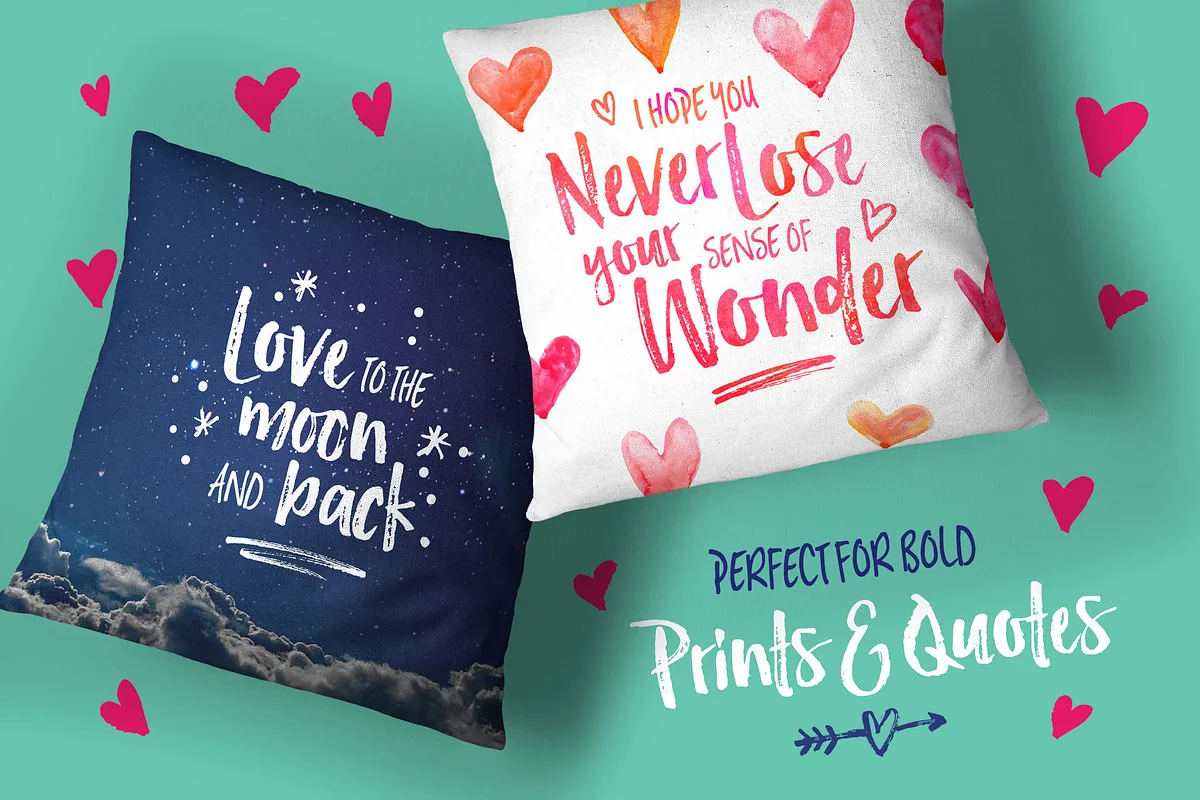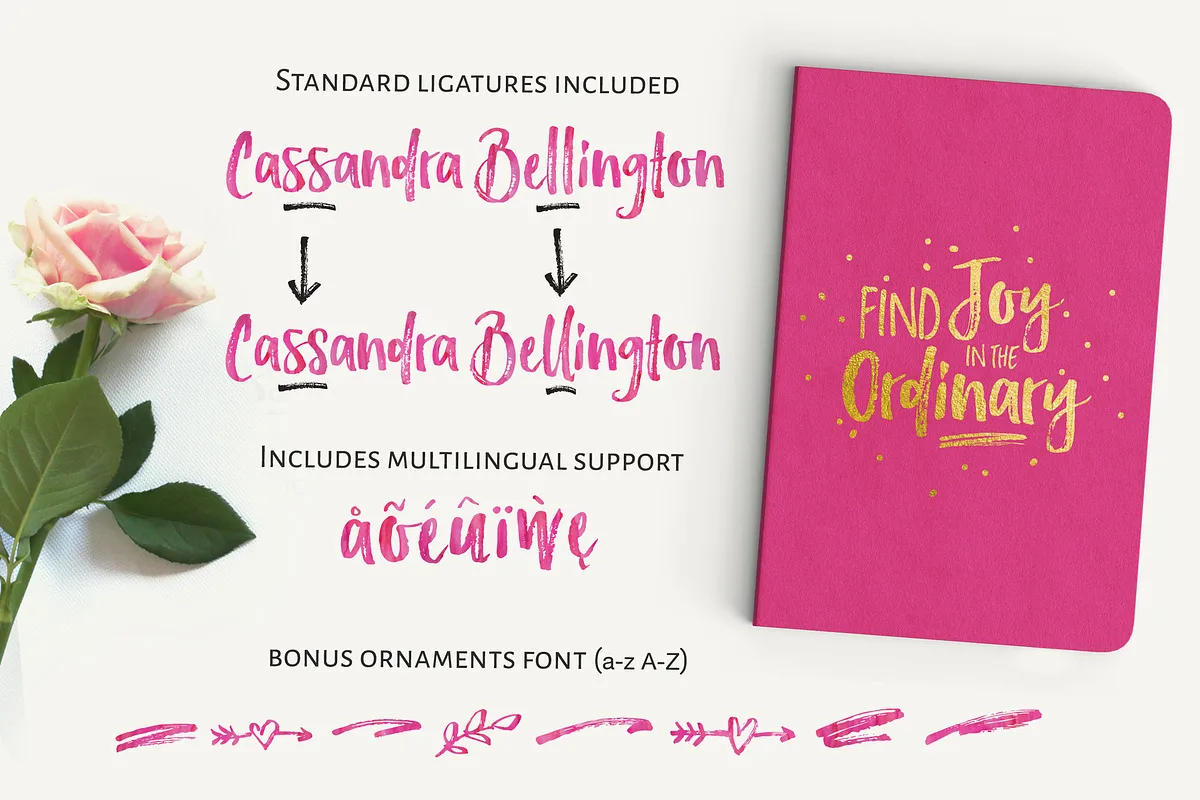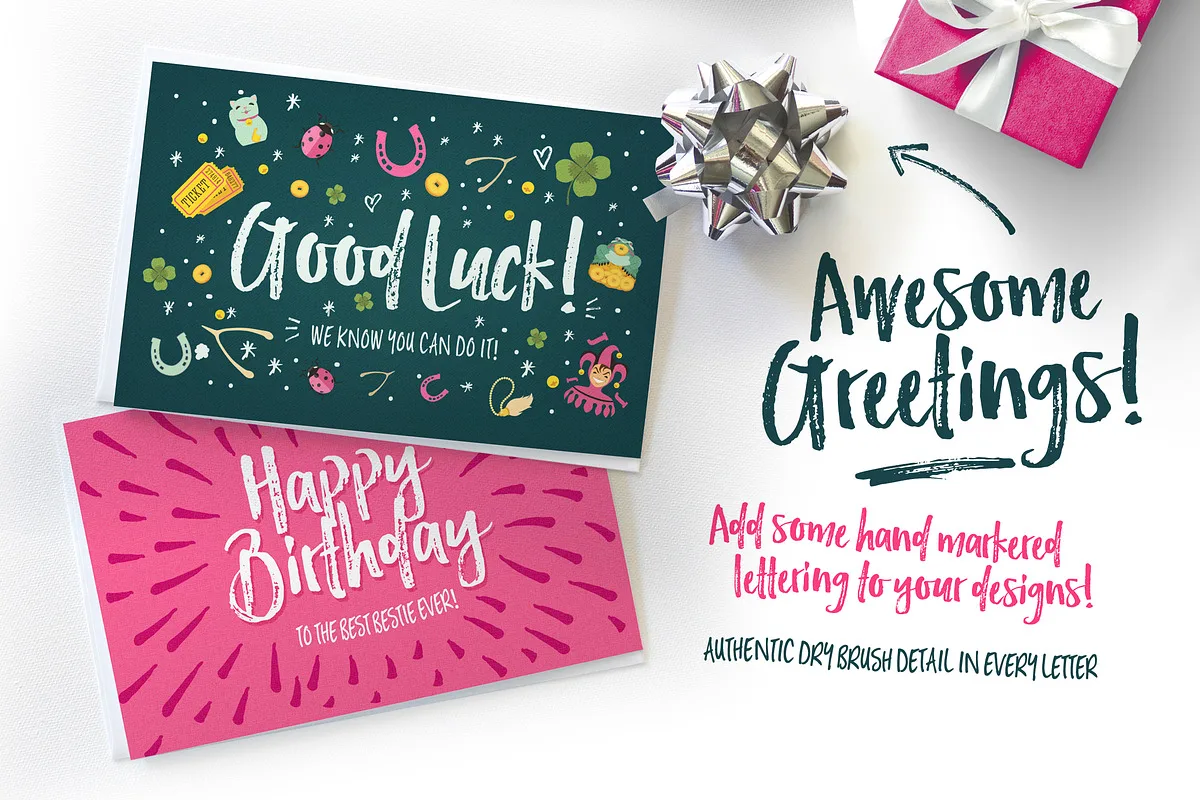
Hello Lucky is a cheeky little dry brush marker font, with an inky complimentary font and oodles of marker-made decorative ornaments. Perfect for display text, logos, handwritten quotes, product packaging and more!
Just type out your design, and then make it pop with the bonus font, and extra scribbles, doodles and rushed underlines from the ornaments font.
Hello Lucky has standard ligatures included – to give the font a more natural, scripted look when you have any double letters in your design. It also has multilingual support with accented characters for international users.